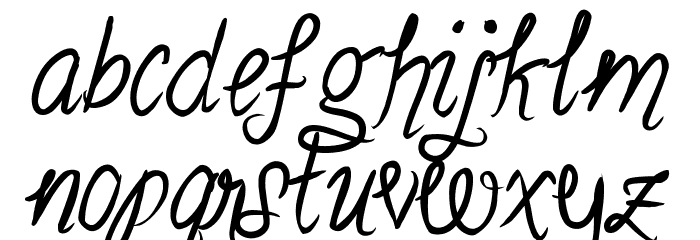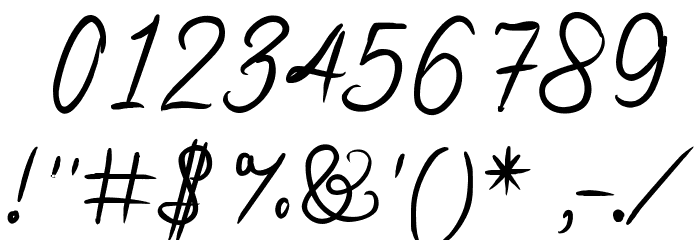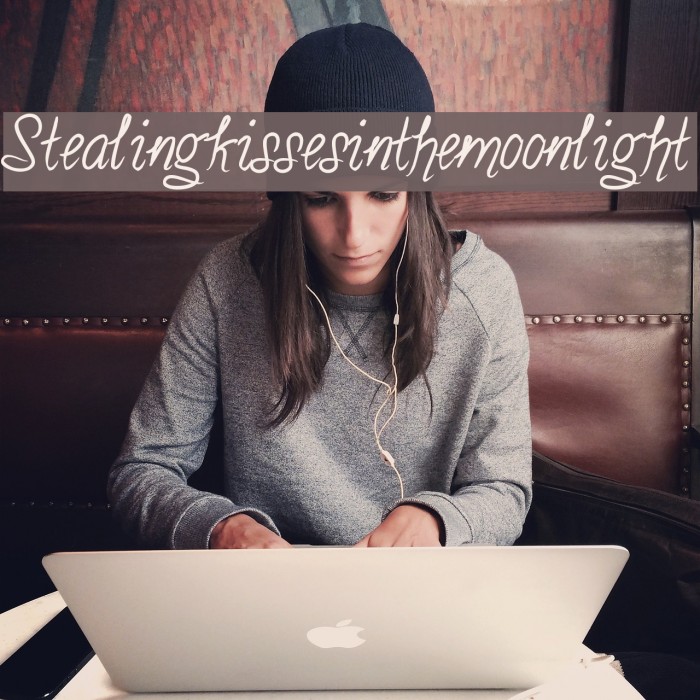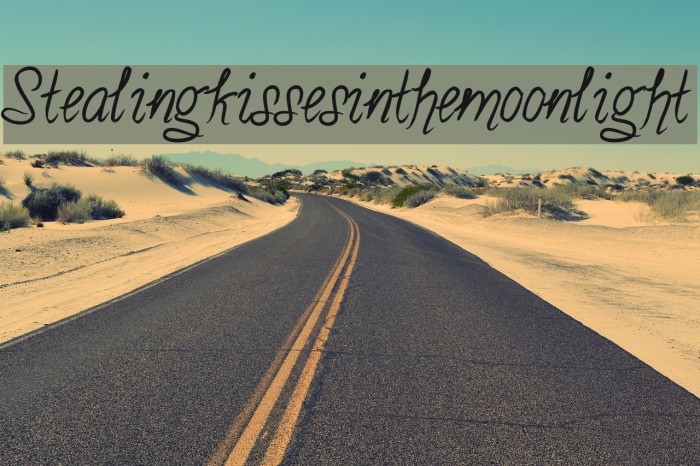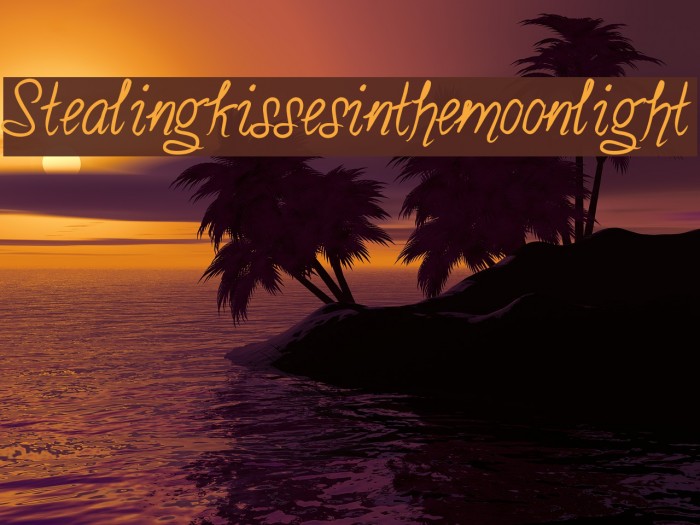
Stealingkissesinthemoonlight Font
This font exudes a romantic and whimsical charm, characterized by its flowing, cursive script style. The letters are elegantly connected, with a smooth and fluid motion that mimics the natural handwriting of a skilled calligrapher. The uppercase letters are slightly more ornate, with subtle flourishes that add a touch of sophistication. The lowercase letters maintain a consistent rhythm, enhancing readability while preserving the artistic flair. Numbers and special characters are crafted with the same attention to detail, ensuring a cohesive look across all text elements. This font is perfect for projects that require a personal, intimate touch, such as wedding invitations, love letters, or branding for luxury products.
A romantic, cursive script font with elegant, flowing letters.
- Proposed Projects: Ideal for wedding invitations, romantic cards, luxury branding, and personal letters.
- Category: Script
- Overall Style: Romantic, Elegant
- Use Case: Invitations, Personal letters, Branding